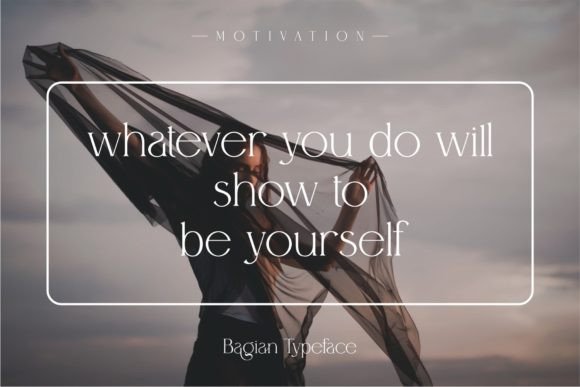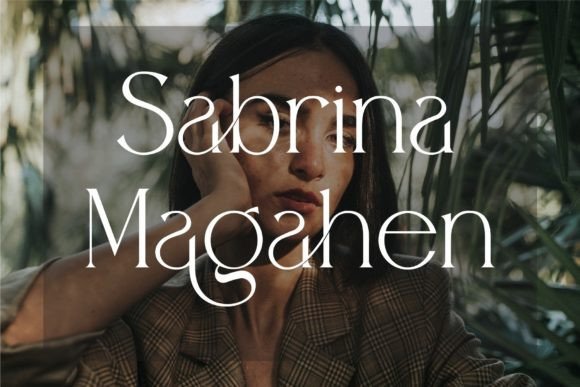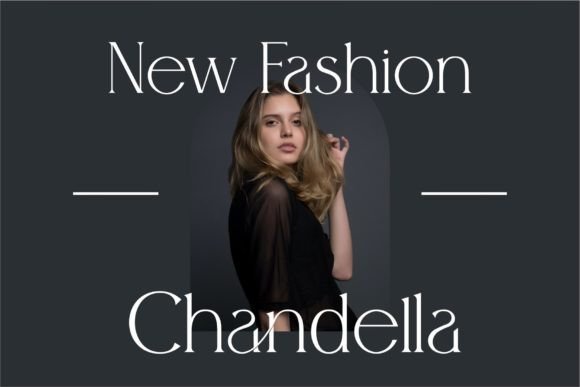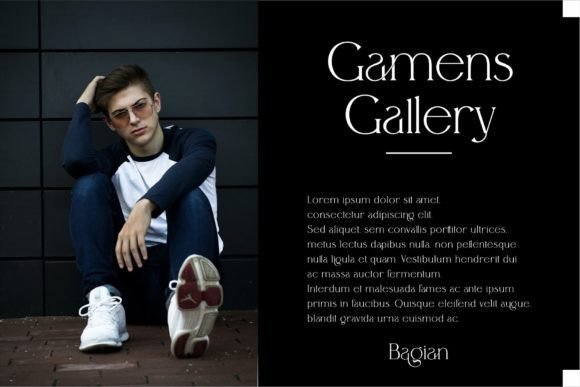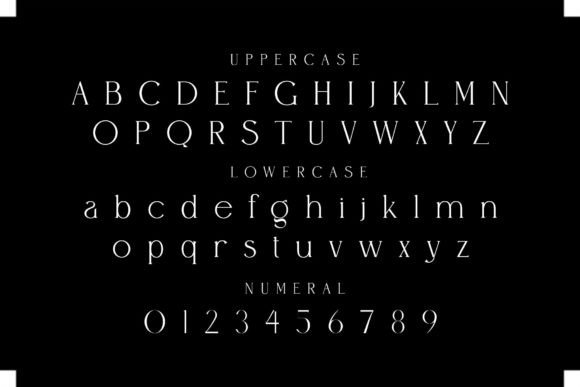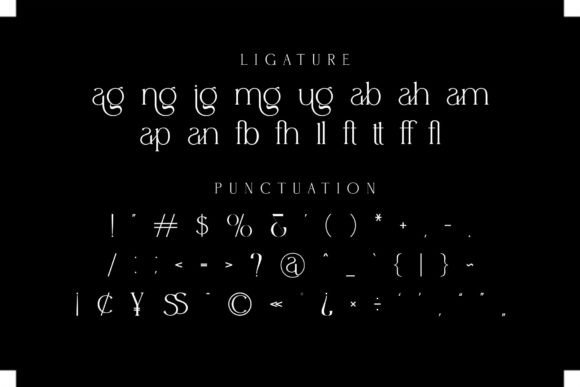
Introducing Bagian Font: Elevate Your Designs with Luxury and Elegance
In the world of typography, a well-crafted font can make all the difference in elevating a design from ordinary to extraordinary. For designers and crafters seeking to add a touch of sophistication and refinement to their projects, Bagian Font is an exquisite serif font that embodies luxury and elegance. With its refined lines, delicate curves, and commanding presence, Bagian Font is perfect for high-end branding, editorial design, and any project requiring a sense of prestige.
The Art of Bagian Font
Bagian Font is a masterfully designed serif font, crafted with meticulous attention to detail to exude opulence and refinement. Its intricate lines and curves are carefully balanced to create a sense of harmony and balance, making it ideal for designs that demand a high level of sophistication. Whether you’re working on a luxury brand identity, a high-end editorial project, or a bespoke craft, Bagian Font is sure to leave a lasting impression.
Key Features of Bagian Font
- PUA Encoding: Bagian Font is PUA (Private Use Area) encoded, allowing effortless access to all delightful glyphs and swashes. This means you can easily incorporate intricate details and flourishes into your designs, taking them to the next level.
- Refined Lines and Delicate Curves: The font’s refined lines and delicate curves are expertly crafted to create a sense of elegance and sophistication, perfect for high-end designs.
- Commanding Presence: Despite its refined nature, Bagian Font has a commanding presence that demands attention, making it perfect for headlines, titles, and other prominent design elements.
Perfect for High-End Designs
Bagian Font is specifically designed for high-end branding, editorial design, and projects that require a touch of luxury. Its sophisticated and refined aesthetic makes it perfect for:
- Luxury Brand Identity: Create a lasting impression with Bagian Font, perfect for logos, business cards, and other brand collateral.
- Editorial Design: Elevate your editorial projects with Bagian Font, ideal for magazines, newspapers, and other publications.
- Bespoke Crafts: Add a touch of elegance to your bespoke crafts, such as wedding invitations, stationery, and other luxury items.
Tips for Using Bagian Font
To get the most out of Bagian Font, consider the following tips:
- Pair with Neutral Colors: Combine Bagian Font with neutral colors to let the font’s elegance shine.
- Experiment with Swashes: Take advantage of Bagian Font’s PUA encoding and experiment with swashes and glyphs to add intricate details to your designs.
- Use for Headlines and Titles: Bagian Font’s commanding presence makes it perfect for headlines and titles, drawing attention to your design.
Bagian Font is an exquisite serif font that embodies luxury and elegance, perfect for designers and crafters seeking to elevate their designs. With its refined lines, delicate curves, and commanding presence, Bagian Font is sure to leave a lasting impression. Whether you’re working on a high-end brand identity, editorial design, or bespoke craft, Bagian Font is the perfect choice for adding a touch of sophistication and refinement.